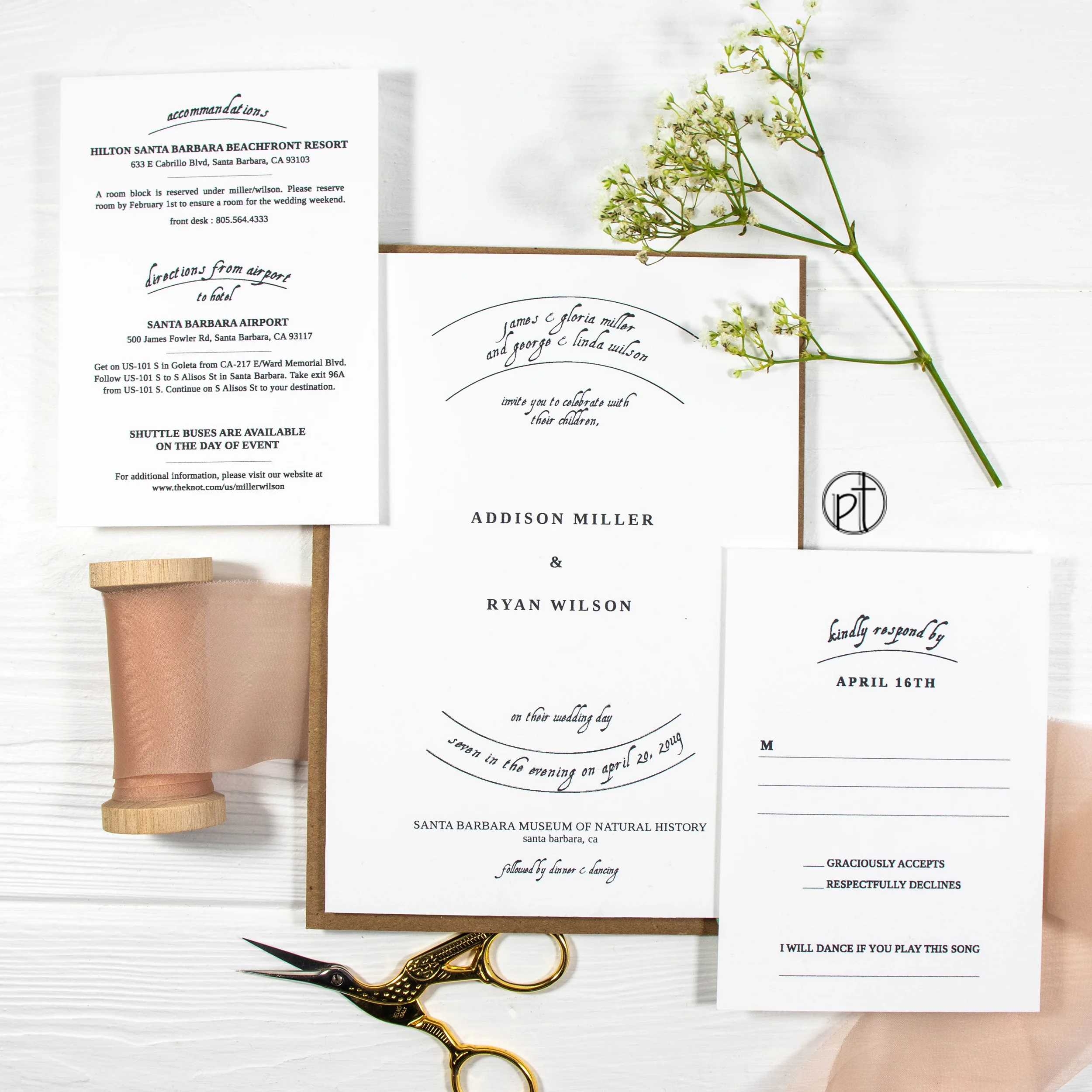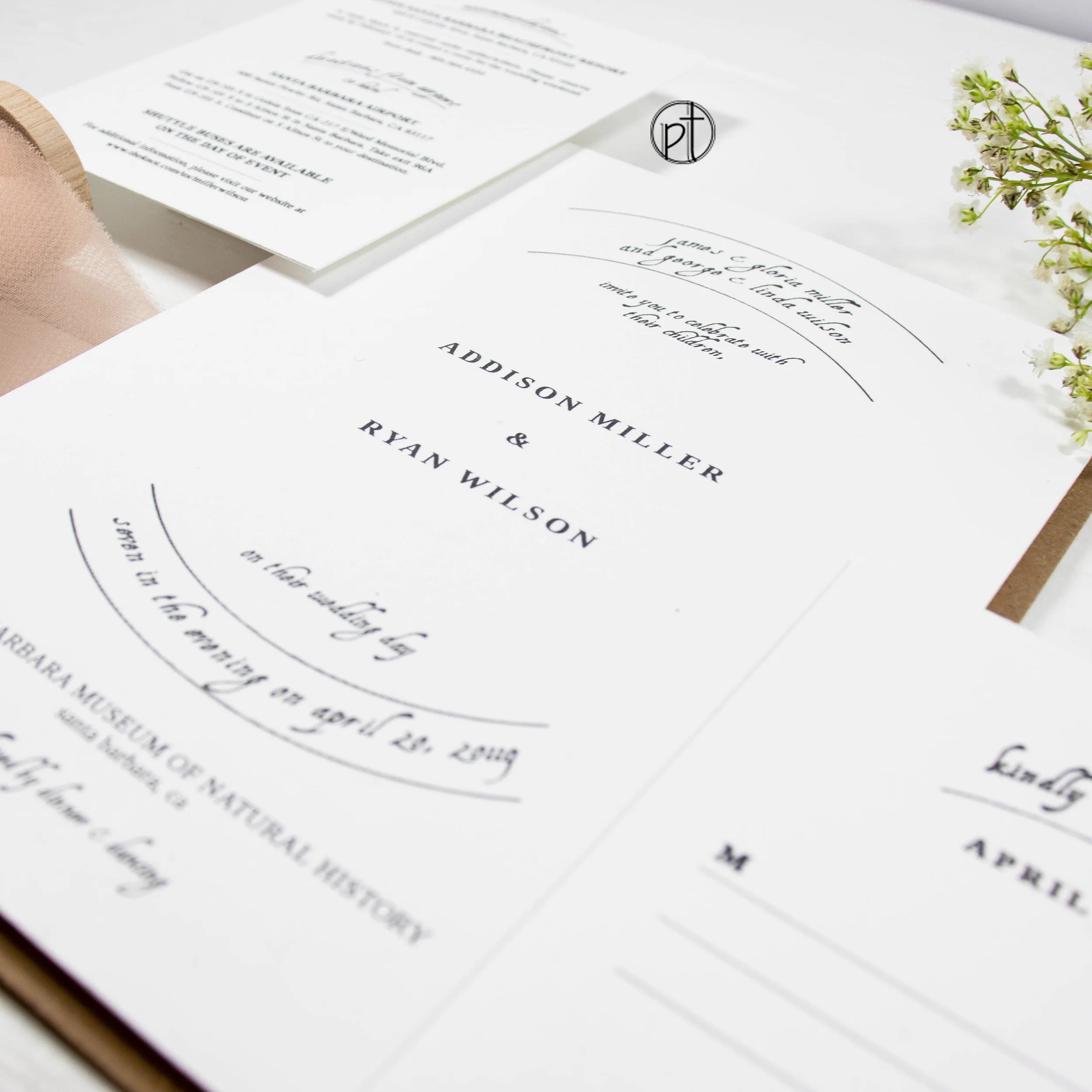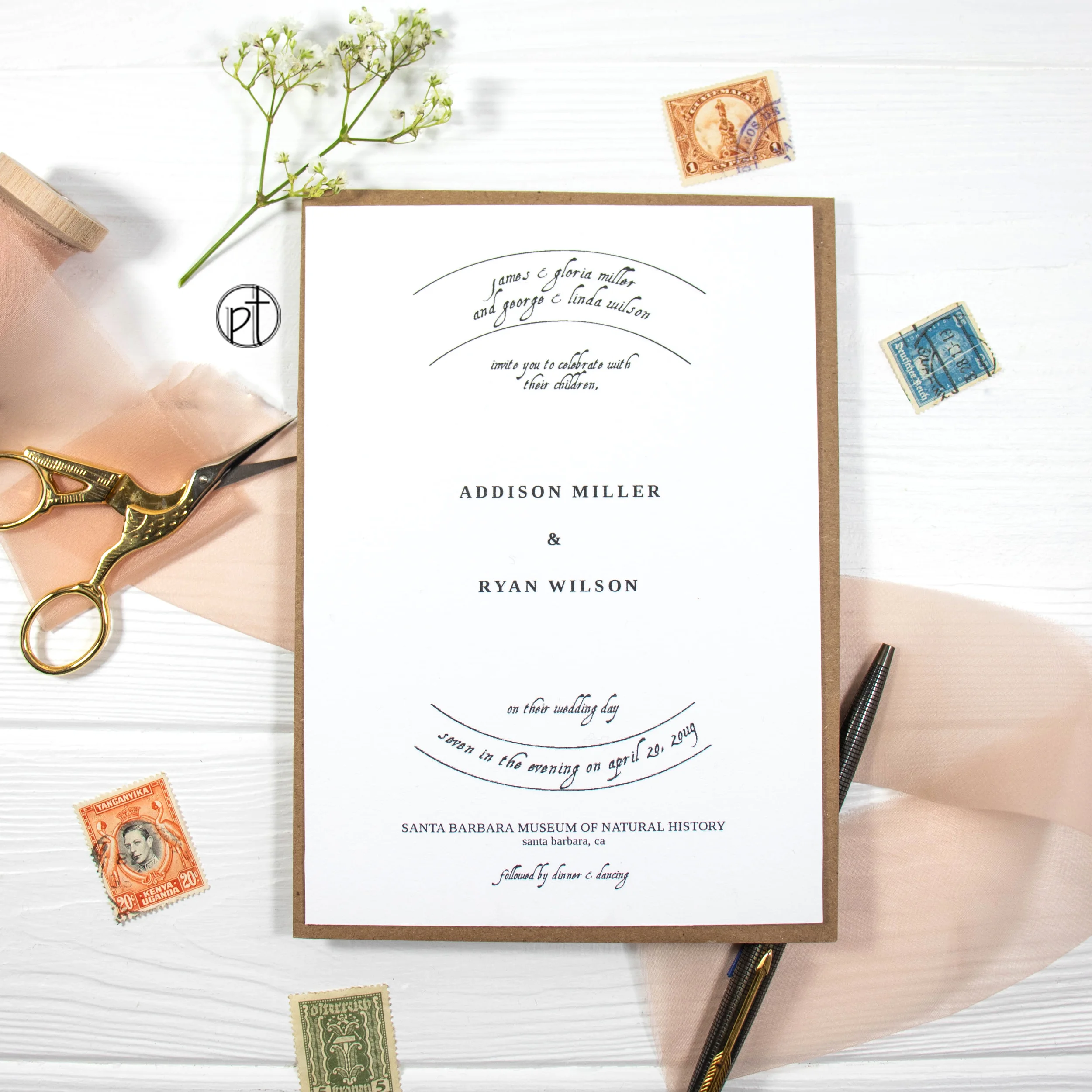
ARCHITECT TYPE - “JUST TYPE”
Architect type is the fourth new suite that is part of the “Just Type” challenge. The font challenger is called Aquiline Two. In the suite, I combined the old school, classic, minimalist, and symbolism into one invitation card. You can read more about this process here in Daily Personal Types